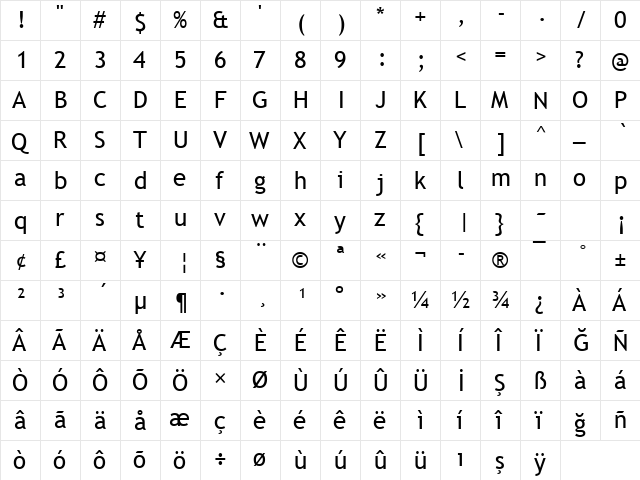
Trebuchet MS Digiscream Regular
Design Context for Trebuchet MS Digiscream Typeface
Trebuchet MS Digiscream is a composed and adaptable typeface that performs quietly and consistently across a wide range of design contexts.